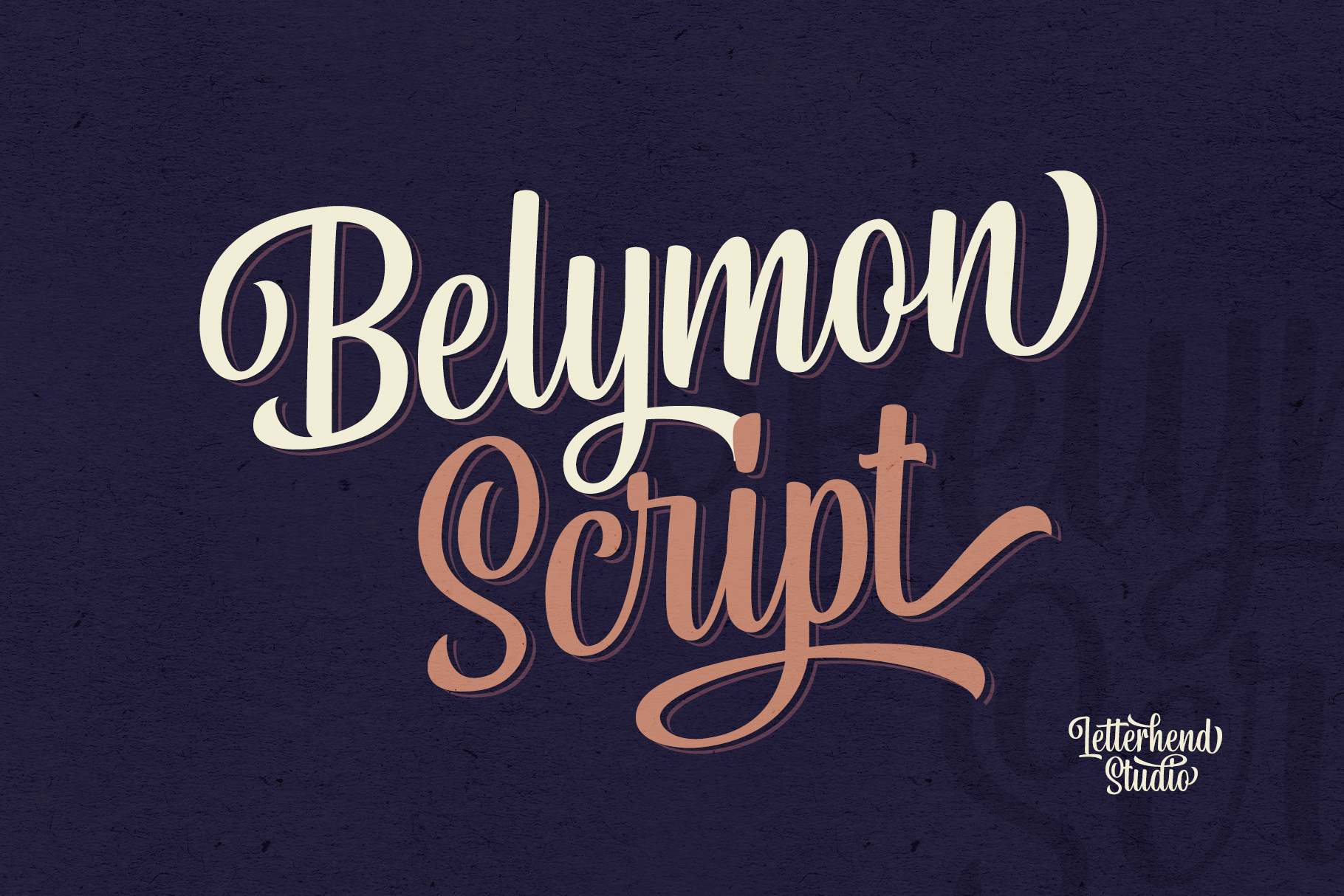
Belymon Script
Introducing Belymon Script, a unique typeface that seamlessly blends classic elegance with modern readability. This versatile script font is ideal for a variety of creative projects including logotypes, apparel designs, invitations, branding, packaging, and advertising. Its stylish curves and distinctive character sets make it perfect for those looking to make a lasting impression.
One of the standout features of Belymon Script is its extensive stylistic set, offering up to six variations for each character. This enables designers to add a personalized touch to their work, enhancing creativity and uniqueness in every letter. Whether you’re crafting a sophisticated logo or designing eye-catching promotional materials, Belymon Script provides the flexibility and flair you need to elevate your designs.